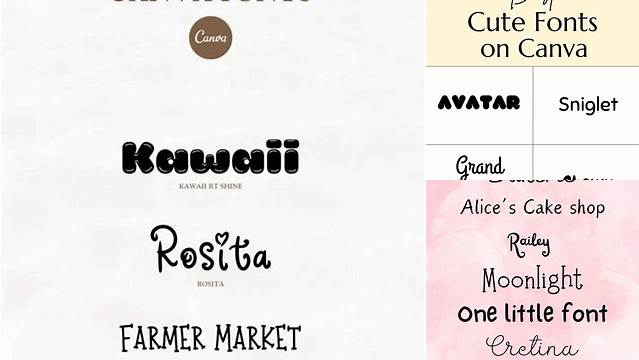
Canva Cute Fonts: Free Typography For Stunning Designs
Are you looking to add a touch of charm and personality to your designs? Look no further than Canva, the user-friendly design platform that offers a vast library of fonts, including a delightful selection of cute fonts. Whether you're crafting social media graphics, invitations, presentations, or any other visual content, choosing the right font can make all the difference. In this article, we'll explore the world of Canva's cute fonts, highlighting some of the best options and how you can use them to enhance your creative projects.
Why Choose Cute Fonts for Your Designs?
Cute fonts, as the name suggests, evoke a sense of playfulness, warmth, and friendliness. They're perfect for projects that aim to create a lighthearted and approachable feel. Think about designs for children's books, birthday cards, or even a blog post about adorable animals – cute fonts can instantly inject the right vibe. But the appeal of cute fonts extends beyond just these specific niches. They can also be used effectively in branding, marketing materials, and social media graphics to create a more personable and engaging connection with your audience. When used strategically, a cute font can help your message stand out from the crowd and leave a lasting impression.
Choosing the right cute font involves considering several factors. Think about the overall tone and message you want to convey. Is it whimsical and playful, or more sophisticated and charming? Consider the legibility of the font, especially if it's being used for body text. A font that's too decorative might be difficult to read in large blocks of text. Also, think about the context in which the font will be used. A cute font that works well for a social media post might not be suitable for a formal business document. Luckily, Canva offers a wide variety of cute fonts, so you're sure to find one that fits your needs. The platform makes it easy to browse and preview fonts, allowing you to see how they look with your specific text and design elements. Don't be afraid to experiment and try out different options until you find the perfect match.
Ultimately, the goal is to select a font that not only looks appealing but also effectively communicates your message. A cute font should complement your overall design and help you create a visual experience that resonates with your target audience. By carefully considering these factors, you can harness the power of cute fonts to create designs that are both visually engaging and highly effective. So, let's dive into the world of Canva's cute font offerings and discover some fantastic options for your next creative project! Remember, font choice is a crucial aspect of design, and selecting a cute font can be a wonderful way to add personality and charm to your work. With Canva's extensive library, the possibilities are endless. Start exploring and see how these fonts can transform your designs from ordinary to extraordinary.
Top Free Cute Fonts on Canva
Canva boasts a treasure trove of free cute fonts, each with its unique personality and charm. Let's explore some of the top contenders that can instantly elevate your designs:
1. Amatic SC
Amatic SC is a hand-drawn, condensed typeface that exudes a playful and casual vibe. Its tall, narrow letters give it a unique character, making it ideal for headlines, posters, and other display purposes. This font is particularly effective when used sparingly, as its distinct style can become overwhelming in large blocks of text. Think about using Amatic SC for invitations, announcements, or even a website header. Its handwritten feel adds a personal touch, making your designs feel more approachable and inviting. The slight irregularity in the letterforms gives it a handmade quality, which can be especially appealing if you're aiming for a rustic or whimsical aesthetic. Amatic SC is also a versatile font that can be paired with a variety of other typefaces. Try pairing it with a simple sans-serif font for body text to create a balanced and harmonious design. Or, use it in combination with a more elegant script font for a touch of contrast and sophistication. The key is to experiment and find the perfect combination that suits your specific design needs.
Amatic SC's strength lies in its ability to add personality and character to your designs. It's a font that demands attention and makes a statement. However, it's important to use it judiciously. Overusing Amatic SC can lead to visual clutter and make your designs feel chaotic. Instead, focus on using it strategically to highlight key elements and create visual interest. For example, you could use Amatic SC for your main headline and then use a simpler font for subheadings and body text. This will help to create a clear visual hierarchy and ensure that your message is easily readable. The condensed nature of Amatic SC also makes it a good choice for designs where space is limited. It allows you to fit more text into a given area without sacrificing legibility. This can be particularly useful for projects like posters or flyers, where you need to convey a lot of information in a concise and visually appealing way. Amatic SC is a valuable addition to any designer's font toolkit, offering a unique blend of playfulness and sophistication. With careful application, it can help you create designs that are both memorable and effective. So, next time you're looking for a font that will inject some personality into your work, give Amatic SC a try. You might be surprised at the impact it can have.
2. Indie Flower
Indie Flower is a whimsical and playful script font that resembles natural handwriting. Its rounded letterforms and slightly uneven baseline give it a friendly and approachable feel, perfect for adding a personal touch to your designs. This font is particularly well-suited for projects that aim to evoke a sense of creativity, imagination, and fun. Think about using Indie Flower for children's books, greeting cards, or even a personal blog. Its handwritten style makes it feel more authentic and relatable, which can be a great way to connect with your audience. The font's organic flow and casual elegance also make it a versatile choice for a variety of design applications. It can be used for headlines, subheadings, or even body text (although it's best to use it sparingly for longer paragraphs due to its script nature). Indie Flower's charm lies in its ability to add a touch of personality to any design. It's a font that feels both familiar and unique, making it a great choice for projects that want to stand out from the crowd. The font's playfulness also makes it a great choice for designs that are aimed at a younger audience. It's a font that feels lighthearted and cheerful, which can be a great way to capture attention and engage with viewers.
When using Indie Flower, it's important to consider the overall tone of your design. This font is best suited for projects that have a casual, informal, or artistic vibe. It might not be the best choice for more formal or professional designs. However, within its niche, Indie Flower is a powerful tool for adding personality and character to your work. The font's versatility also makes it a valuable addition to any designer's font library. It can be paired with a variety of other typefaces, from simple sans-serif fonts to more elegant serif fonts. The key is to experiment and find the perfect combination that suits your specific design needs. For example, you could pair Indie Flower with a clean sans-serif font for body text to create a balanced and readable design. Or, you could use it in combination with a more ornate serif font for a touch of contrast and sophistication. Indie Flower is more than just a font; it's a visual expression of creativity and imagination. It's a font that invites you to let your personality shine through. So, if you're looking for a font that will add a touch of whimsy and charm to your designs, Indie Flower is definitely worth considering. It's a font that will help you create designs that are both memorable and meaningful. With its unique blend of playfulness and elegance, Indie Flower is sure to become a go-to choice for many of your creative projects.
3. Patrick Hand
Patrick Hand is a charming and legible handwritten font that brings a touch of personality to any design. Its rounded letterforms and slightly uneven strokes give it a friendly and approachable feel, making it perfect for projects that aim to create a sense of warmth and connection. This font is particularly well-suited for designs that need a personal touch, such as invitations, thank-you notes, or even blog headers. Its handwritten style makes it feel more authentic and relatable, which can be a great way to engage your audience. Patrick Hand is also a versatile font that can be used for a variety of design applications. It works well for both headlines and body text, although it's important to ensure readability by using a sufficient font size and line height. The font's clean and simple design also makes it easy to pair with other typefaces, giving you a lot of flexibility in your design choices. The charm of Patrick Hand lies in its ability to convey a sense of genuineness and sincerity. It's a font that feels like it was written by a real person, which can be a powerful way to connect with your audience on an emotional level. Whether you're designing a personal greeting card or a professional presentation, Patrick Hand can help you create a design that feels both personal and polished.
When using Patrick Hand, it's important to consider the overall aesthetic of your design. This font works best in projects that have a casual, friendly, or heartfelt tone. It might not be the best choice for designs that need to convey a sense of formality or authority. However, within its niche, Patrick Hand is a valuable tool for adding a human touch to your work. The font's legibility also makes it a practical choice for a variety of applications. It can be used for both print and digital designs, and it works well on a variety of backgrounds. Patrick Hand's simplicity is its strength. It's a font that doesn't try to be flashy or over-the-top, but it still manages to convey a sense of personality and warmth. This makes it a great choice for designs that need to be both effective and approachable. If you're looking for a font that will help you create a connection with your audience, Patrick Hand is definitely worth considering. It's a font that feels like a friendly voice, and it can help you communicate your message in a way that resonates with your viewers. So, next time you're working on a design that needs a touch of personality, give Patrick Hand a try. You might be surprised at the impact it can have.
4. Permanent Marker
Permanent Marker is a bold and playful font that mimics the look of marker handwriting. Its thick, slightly uneven strokes give it a casual and energetic feel, making it ideal for designs that need to grab attention. This font is particularly well-suited for headlines, posters, and other display purposes. Its bold character makes it stand out, ensuring that your message is seen and heard. Think about using Permanent Marker for promotional materials, social media graphics, or even website banners. Its handwritten style adds a personal touch, while its bold presence makes it impossible to ignore. The font's energy and enthusiasm also make it a great choice for designs that are aimed at a younger audience. It's a font that feels fun and exciting, which can be a great way to capture attention and engage with viewers.
When using Permanent Marker, it's important to consider the overall impact you want to create. This font is best suited for projects that need to make a statement. It might not be the best choice for more subtle or understated designs. However, within its niche, Permanent Marker is a powerful tool for creating a visual impact. The font's boldness also means that it's best used sparingly. Overusing Permanent Marker can lead to visual clutter and make your designs feel overwhelming. Instead, focus on using it strategically to highlight key elements and create a focal point. For example, you could use Permanent Marker for your main headline and then use a simpler font for subheadings and body text. This will help to create a clear visual hierarchy and ensure that your message is easily readable. Permanent Marker is a font that demands attention, and it's important to use that power responsibly. When used effectively, it can be a game-changer for your designs, helping you create visuals that are both memorable and impactful. So, if you're looking for a font that will make a statement, Permanent Marker is definitely worth considering. It's a font that will help you stand out from the crowd and get your message across with confidence.
5. Covered By Your Grace
Covered By Your Grace is a delicate and elegant script font that exudes a sense of grace and sophistication. Its flowing letterforms and graceful curves give it a timeless and romantic feel, making it perfect for designs that aim to evoke a sense of beauty and elegance. This font is particularly well-suited for wedding invitations, greeting cards, and other special occasion designs. Its elegant style adds a touch of class and refinement, making your designs feel extra special. Think about using Covered By Your Grace for stationery, logos, or even website headers. Its flowing script adds a personal touch, while its refined aesthetic makes it suitable for a variety of applications. The font's delicate nature also makes it a great choice for designs that are aimed at a female audience. It's a font that feels feminine and graceful, which can be a great way to connect with viewers on an emotional level.
When using Covered By Your Grace, it's important to consider the overall tone of your design. This font is best suited for projects that have an elegant, romantic, or sophisticated vibe. It might not be the best choice for more casual or playful designs. However, within its niche, Covered By Your Grace is a valuable tool for adding a touch of class to your work. The font's legibility can be a bit challenging at smaller sizes, so it's best used for larger text elements like headlines or titles. It's also important to pair Covered By Your Grace with a simpler font for body text to ensure readability. A clean sans-serif font or a classic serif font can be a great choice. The key is to create a balance between the elegance of Covered By Your Grace and the practicality of your body text. Covered By Your Grace is more than just a font; it's a statement of style and sophistication. It's a font that will help you create designs that are both beautiful and memorable. So, if you're looking for a font that will add a touch of elegance to your work, Covered By Your Grace is definitely worth considering. It's a font that will help you create designs that are truly special.
How to Use Cute Fonts Effectively
Using cute fonts effectively involves more than just selecting a visually appealing typeface. It's about understanding the context of your design and how the font complements your message. Here are some tips to help you use cute fonts effectively:
Consider your target audience: Who are you trying to reach with your design? A cute font might be perfect for a children's book or a birthday invitation, but it might not be suitable for a formal business presentation. Think about the demographics and interests of your audience and choose a font that resonates with them.
Think about the overall tone and message: What kind of feeling do you want your design to evoke? Do you want it to be playful, whimsical, or charming? Choose a font that aligns with your desired tone. If you're trying to convey a sense of fun and excitement, a bold and quirky font might be a good choice. If you're aiming for a more delicate and elegant look, a graceful script font might be a better fit.
Pair cute fonts with other typefaces: Cute fonts often work best when paired with simpler, more neutral typefaces. Avoid using multiple decorative fonts in the same design, as this can create visual clutter. A clean sans-serif font or a classic serif font can provide a nice contrast to a cute font, making your design more balanced and readable.
Use cute fonts sparingly: While cute fonts can be eye-catching and engaging, overusing them can be overwhelming. Use them strategically to highlight key elements or add a touch of personality, but don't let them dominate your entire design. For example, you might use a cute font for your headline and then use a more legible font for your body text.
Pay attention to legibility: While aesthetics are important, legibility should always be a top priority. Choose a cute font that is easy to read, especially if it's being used for body text. Avoid fonts with overly decorative or intricate letterforms, as these can be difficult to decipher. Also, pay attention to font size and line height to ensure that your text is comfortable to read.
Experiment with different styles: Canva offers a wide variety of cute fonts, so don't be afraid to experiment. Try out different fonts and see how they look in your design. You might be surprised at what you discover. The key is to find a font that not only looks good but also effectively communicates your message.
By following these tips, you can harness the power of cute fonts to create designs that are both visually appealing and highly effective. Remember, the goal is to use fonts strategically to enhance your message and connect with your audience. So, have fun experimenting and see how cute fonts can transform your creative projects!
Level Up Your Designs with Canva Cute Fonts Today
Canva's collection of cute fonts offers a fantastic way to infuse your designs with personality, charm, and a touch of whimsy. Whether you're creating social media graphics, invitations, or marketing materials, the right cute font can elevate your work and help you connect with your audience on a more personal level. From the playful handwriting style of Indie Flower to the bold and energetic Permanent Marker, Canva's free font library has something for everyone. So, why not explore these delightful options and discover how they can transform your creative projects?
Remember, choosing the right font is a crucial element of design. It's not just about aesthetics; it's about communication. A well-chosen font can help you convey your message more effectively and create a visual experience that resonates with your target audience. By considering factors like your target audience, the overall tone of your design, and legibility, you can select a cute font that not only looks great but also serves a purpose. And with Canva's user-friendly platform, experimenting with different fonts is easy and fun. You can quickly preview fonts in your design, try out different pairings, and see what works best for your specific needs.
So, what are you waiting for? Dive into Canva's world of cute fonts today and unleash your creativity. Whether you're a seasoned designer or just starting out, these fonts offer a fantastic way to add a touch of personality and charm to your work. With a little experimentation and a keen eye for design, you can use cute fonts to create visuals that are both memorable and effective. Let your imagination run wild, and see how these delightful typefaces can elevate your designs to the next level. Your audience will thank you for it! And remember, the best design is the one that speaks to the heart. So, choose a font that resonates with you, and let your creativity shine.